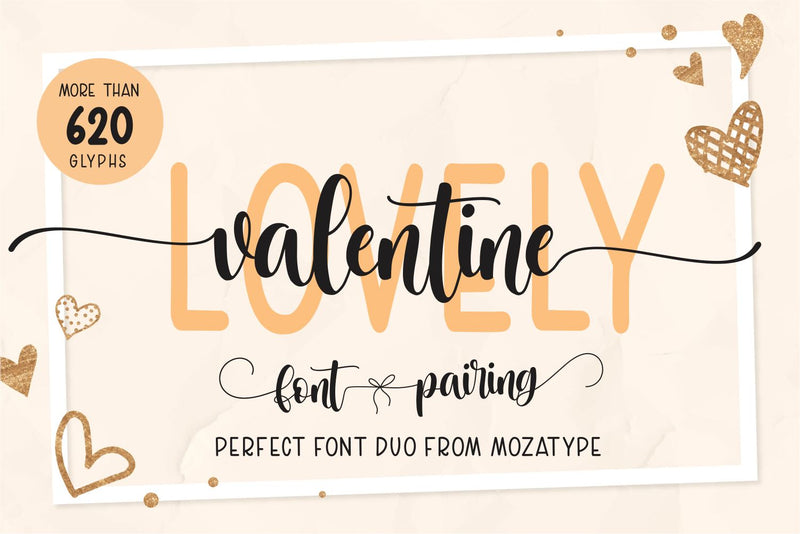
Lovely Valentina
Lovely Valentina is a script handwritten font.
It is a quirky and natural hand-drawn font.
As its name implies, Sweet Valentine's is a charming, romantic font – perfect for weddings, Valentine’s Day and anniversary celebrations.
This font is ideal for crafting, branding, and decorates your any project. These fonts are perfect for wedding invitation or your blog. Also with their help, you can create a logo or beautiful frame for your home. Or just use for your business, book covers, stationery, marketing, magazines, and more. Fall in love with its incredibly versatile style and use it to create spectacular designs!
Use this font for any crafting project that requires a personalized look!